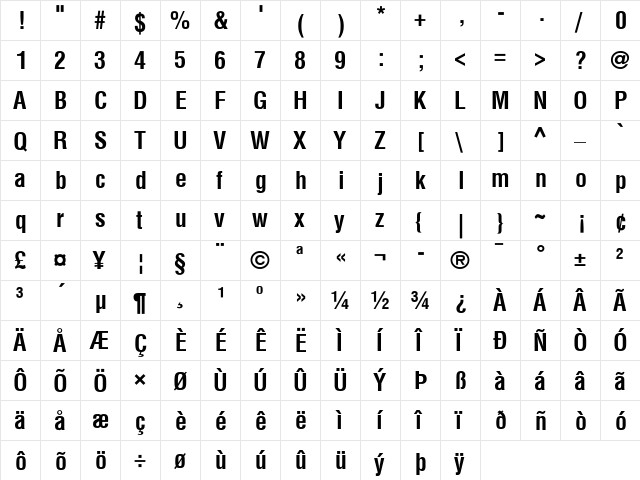
Helvetica Condensed Bold
Design Context for Helvetica Condensed Typeface
Helvetica Condensed is a composed and adaptable typeface that performs quietly and consistently across a wide range of design contexts. The heavy weight commands attention and anchors typographic hierarchies. Its narrow stance lets it pack a punch even in space-constrained designs.